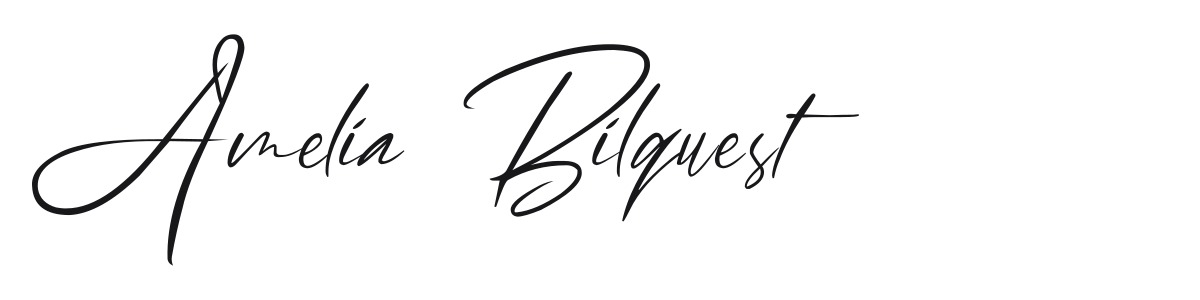
Amelia Bilquest
Amelia Bilquest is a flowing casual script with long sweeping joins and delicate high-contrast strokes that give it a handwritten calligraphic quality. Extended ascenders and looping descenders add a sense of movement and romance. It suits wedding stationery, lifestyle branding, and any project that calls for an elegant, personal touch.